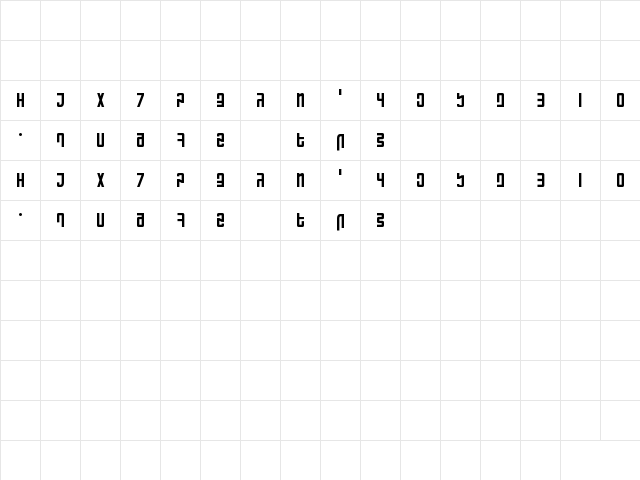
Ranmorian Standard beta Regular
Design Context for Ranmorian Standard beta Typeface
Ranmorian Standard beta takes a measured approach to typography — its balanced proportions and neutral character make it a reliable workhorse for both digital and print work.